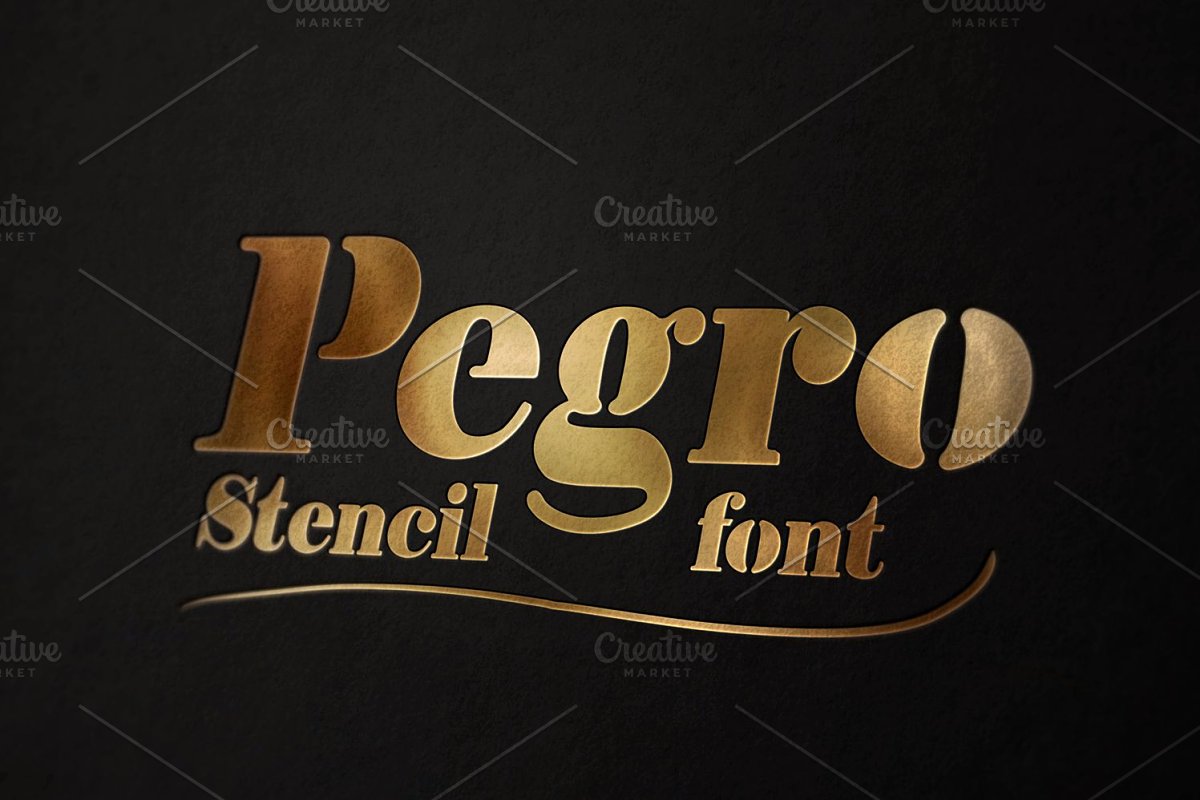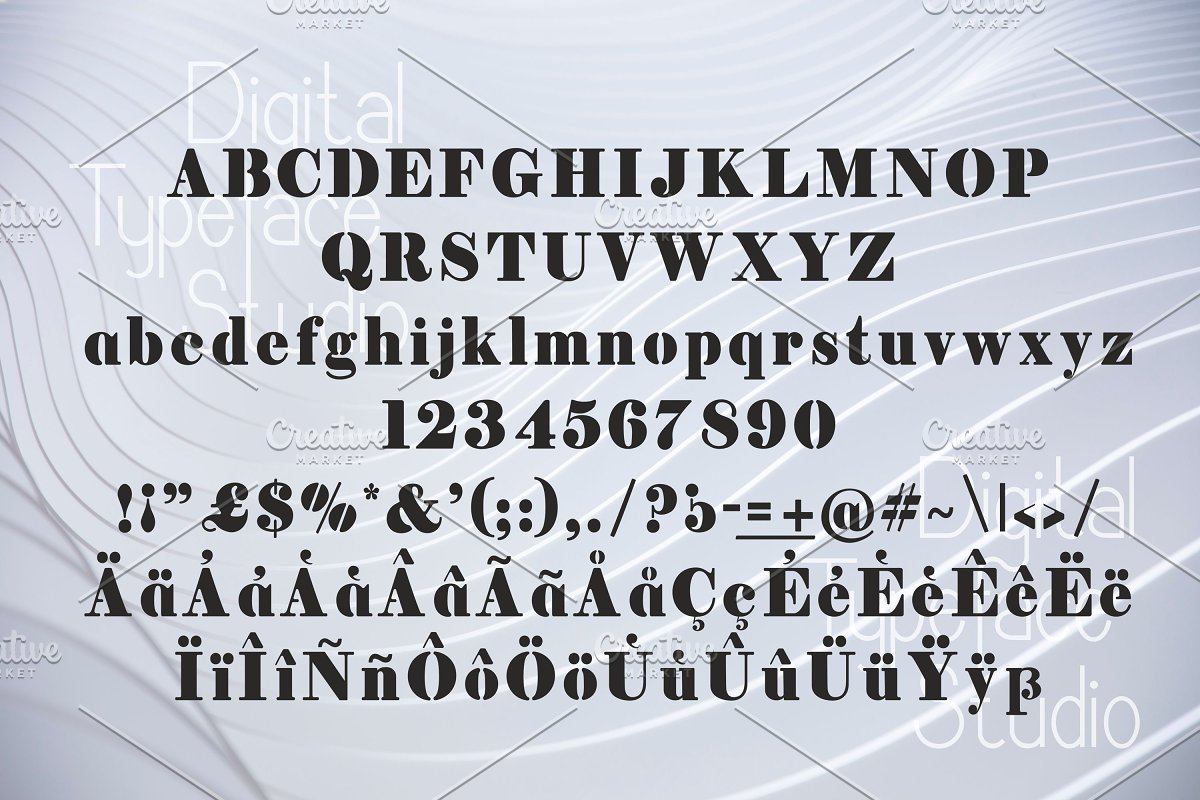
About the Pegro Stencil
Pegro Stencil is a strong and bold stencil serif font, Legible and stylish display font, and perfect for headlines, covers, logos and branding and other creative designs,